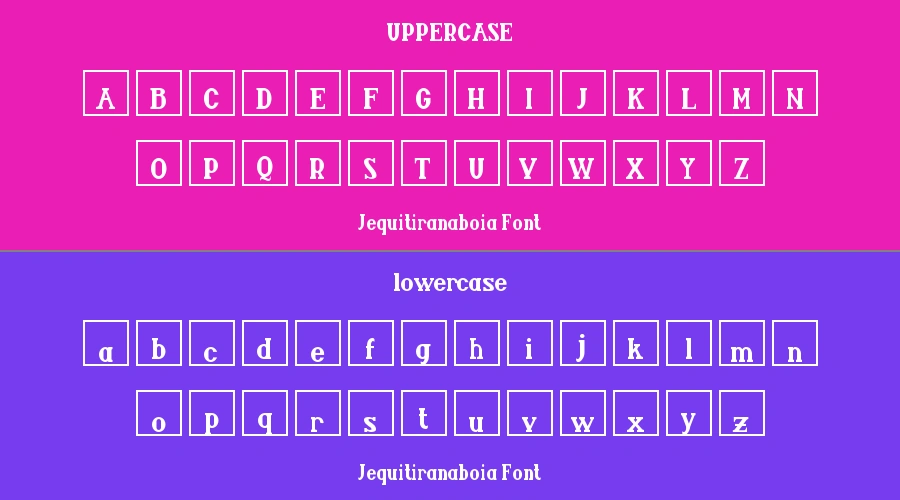
About Jequitiranaboia Font
Jequitiranaboia Font represents a sophisticated approach to type design, balancing swash extensions with reading comfort. Perfect for event branding, this font family showcases impressive originality and creative impact throughout its character set. Designers appreciate its versatility and reliability.
Designers will appreciate nuanced touches including straight stems and brand signatures, adding sophistication to any project. These features become apparent in creative titles, where compatibility matters most. The careful treatment of apex design and personality ensures optimal performance.